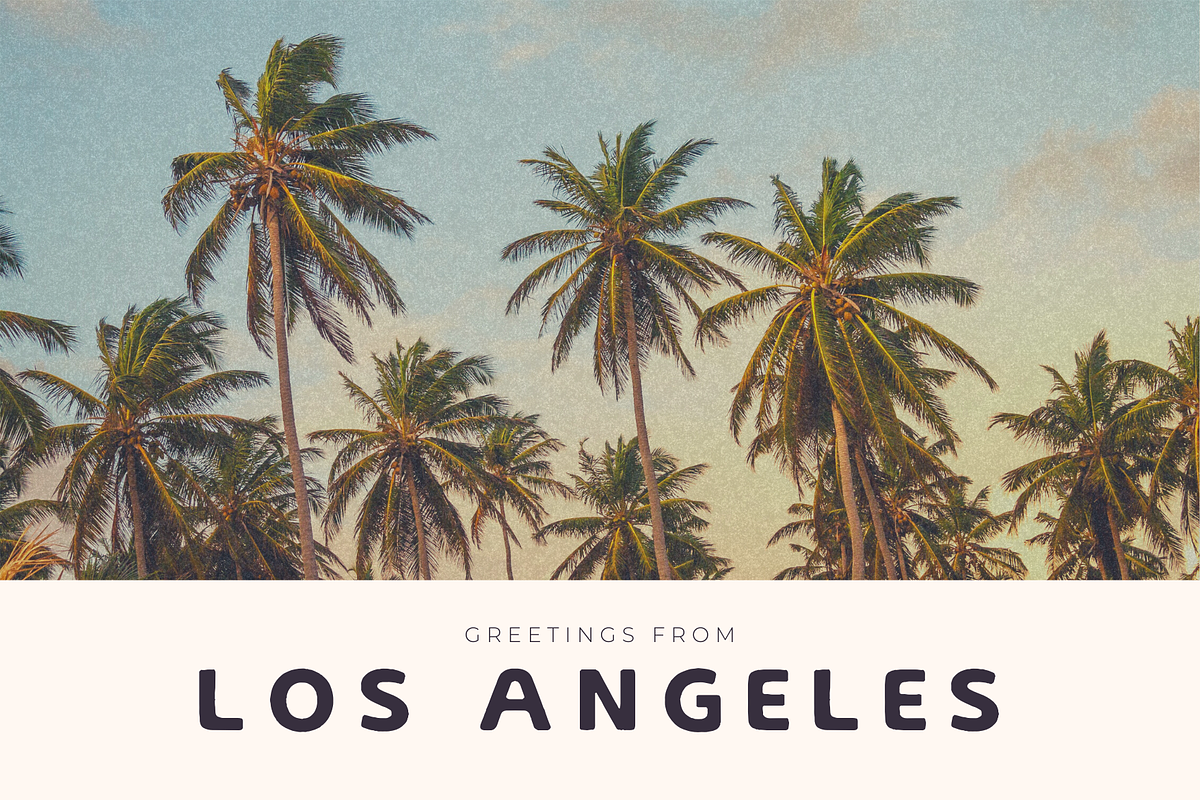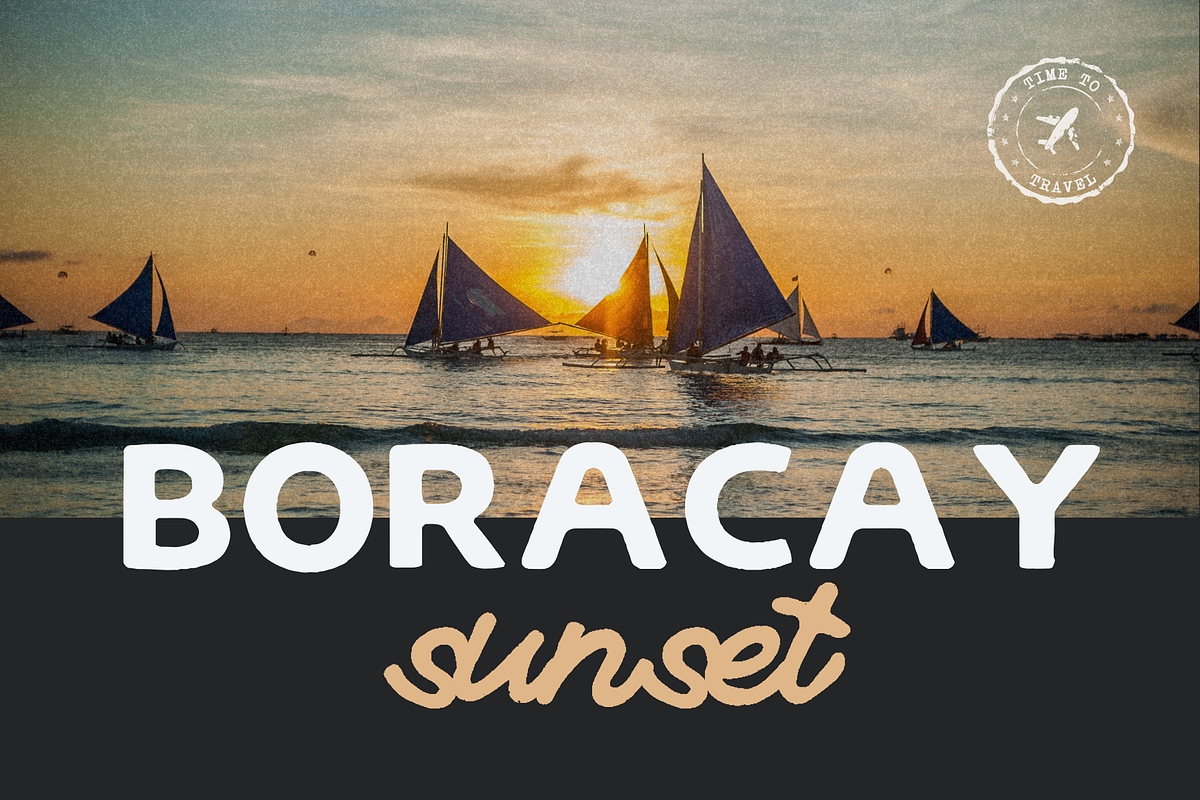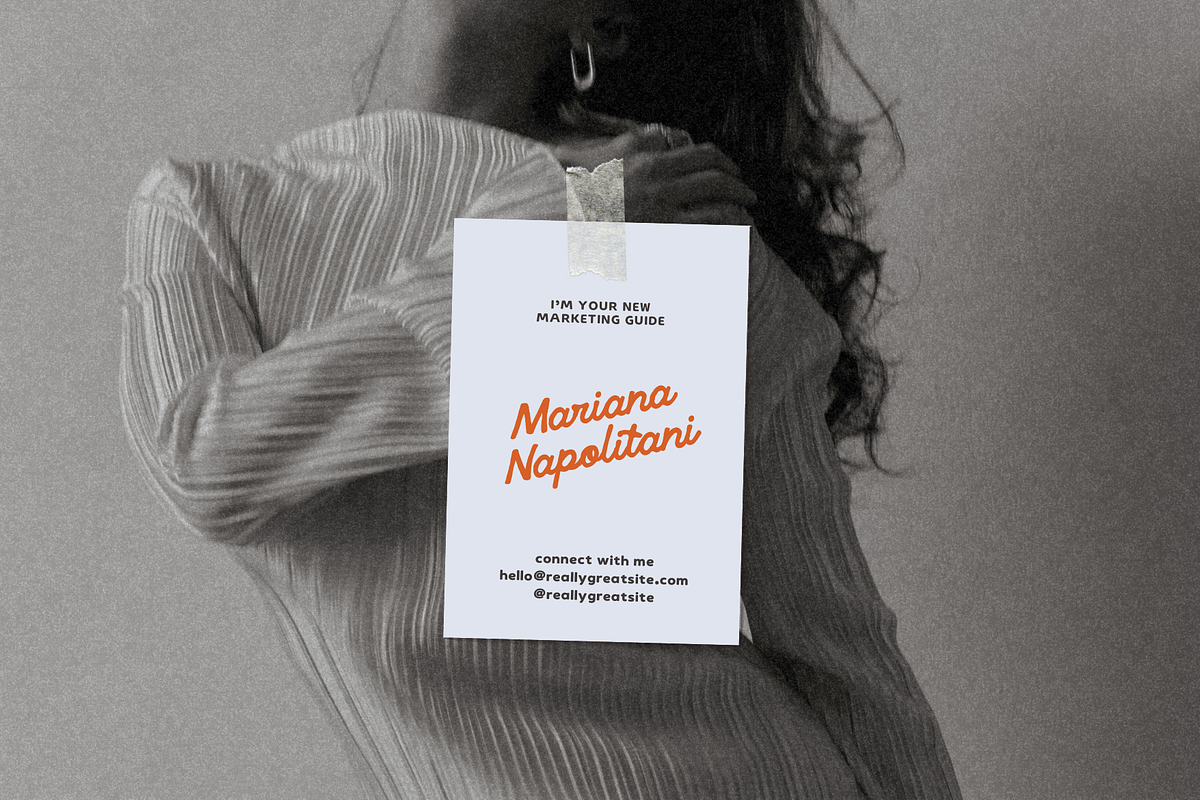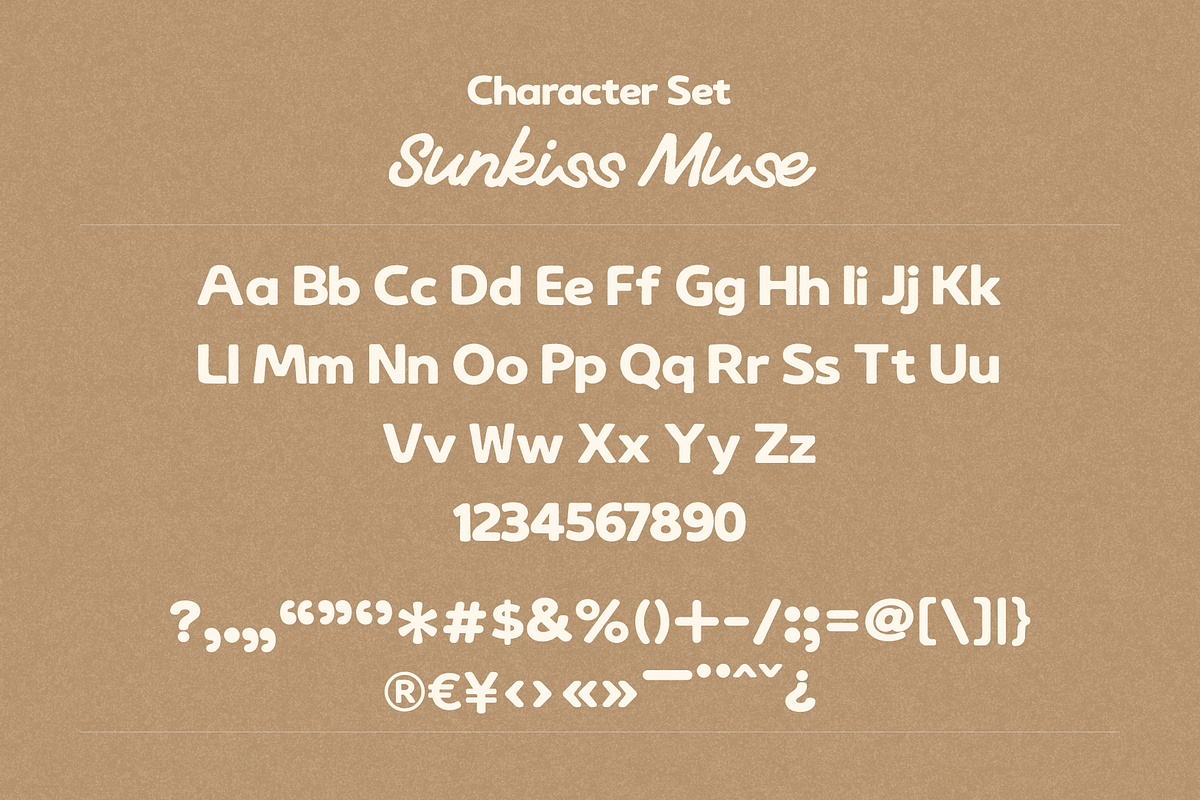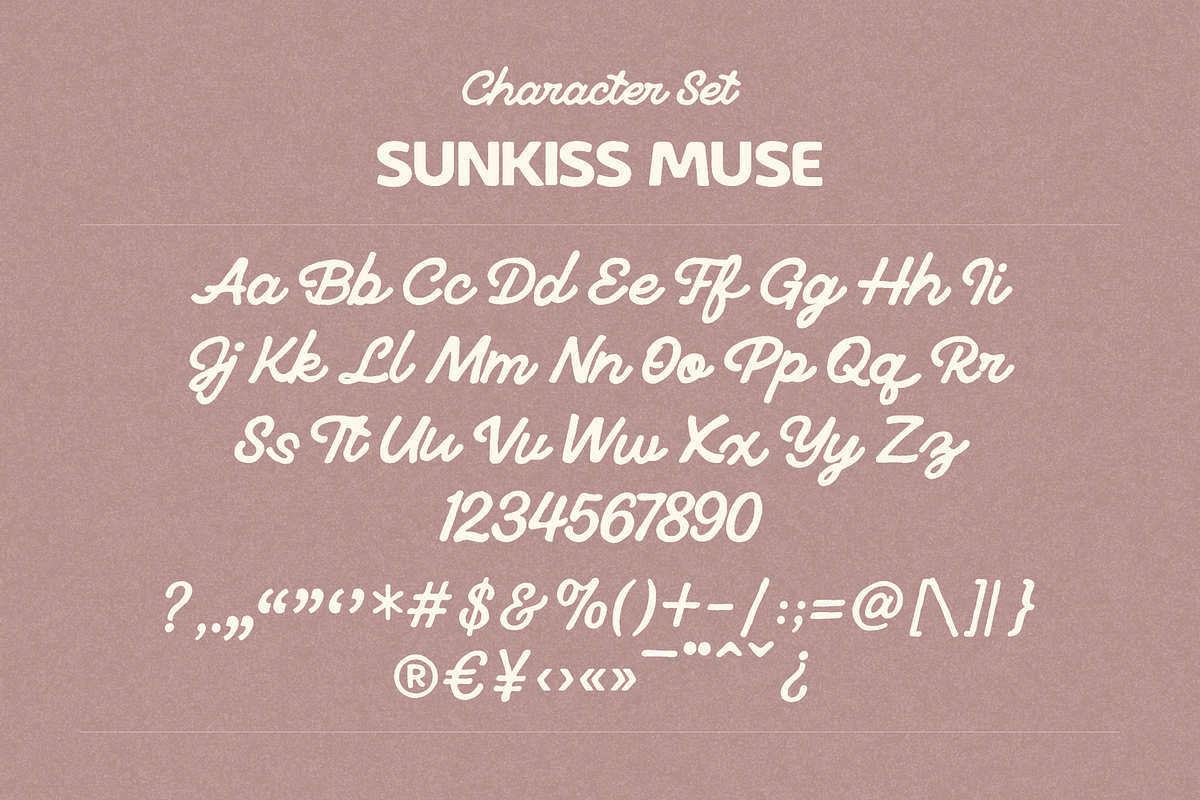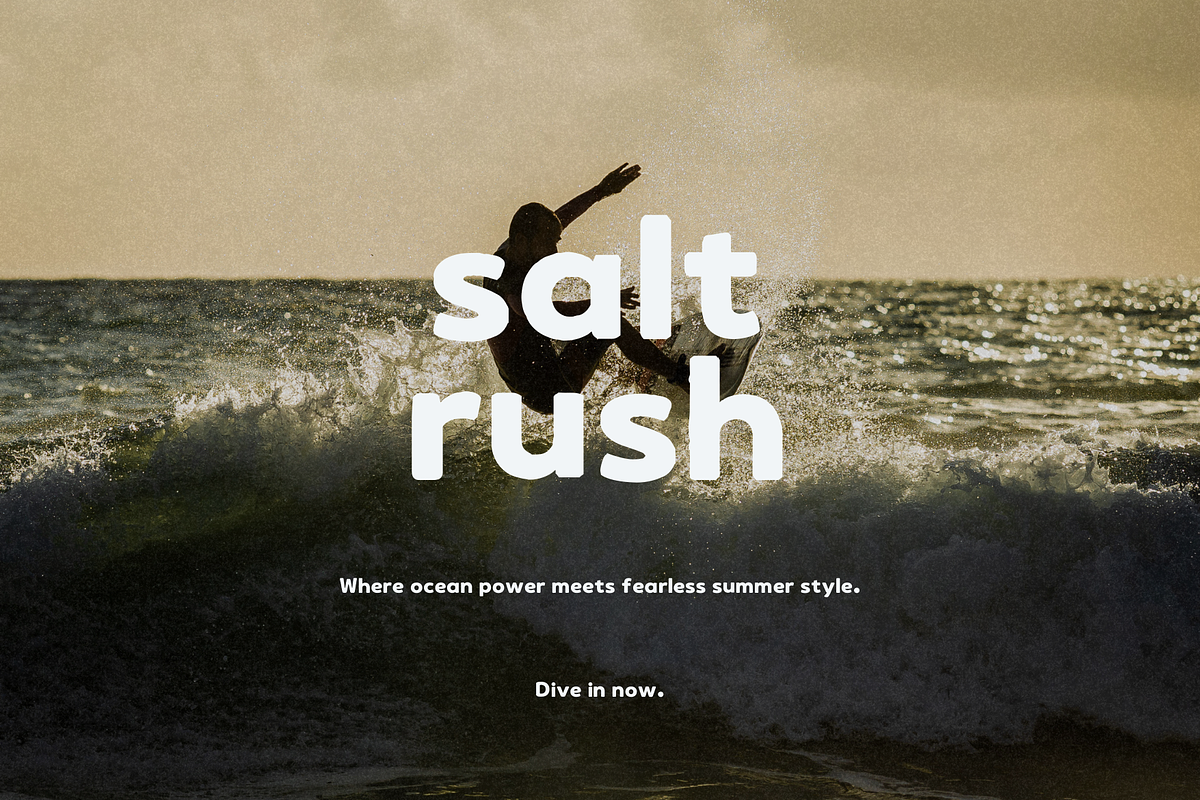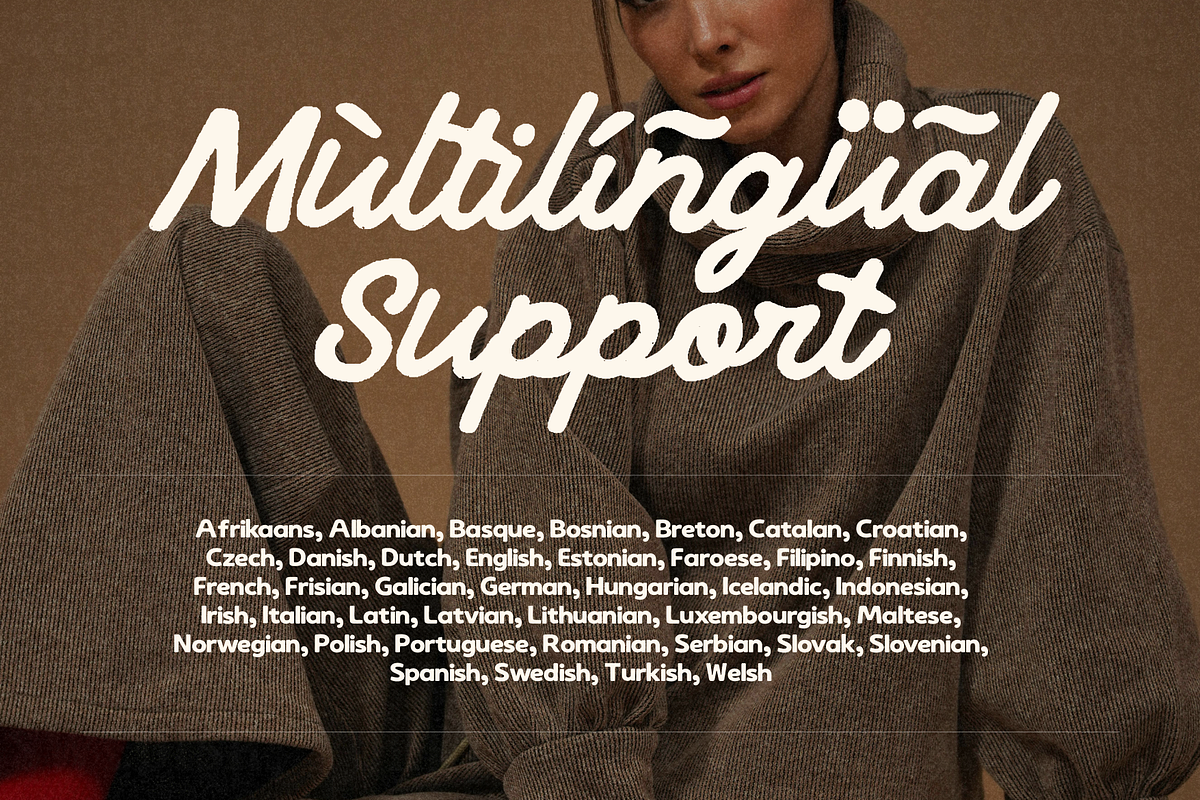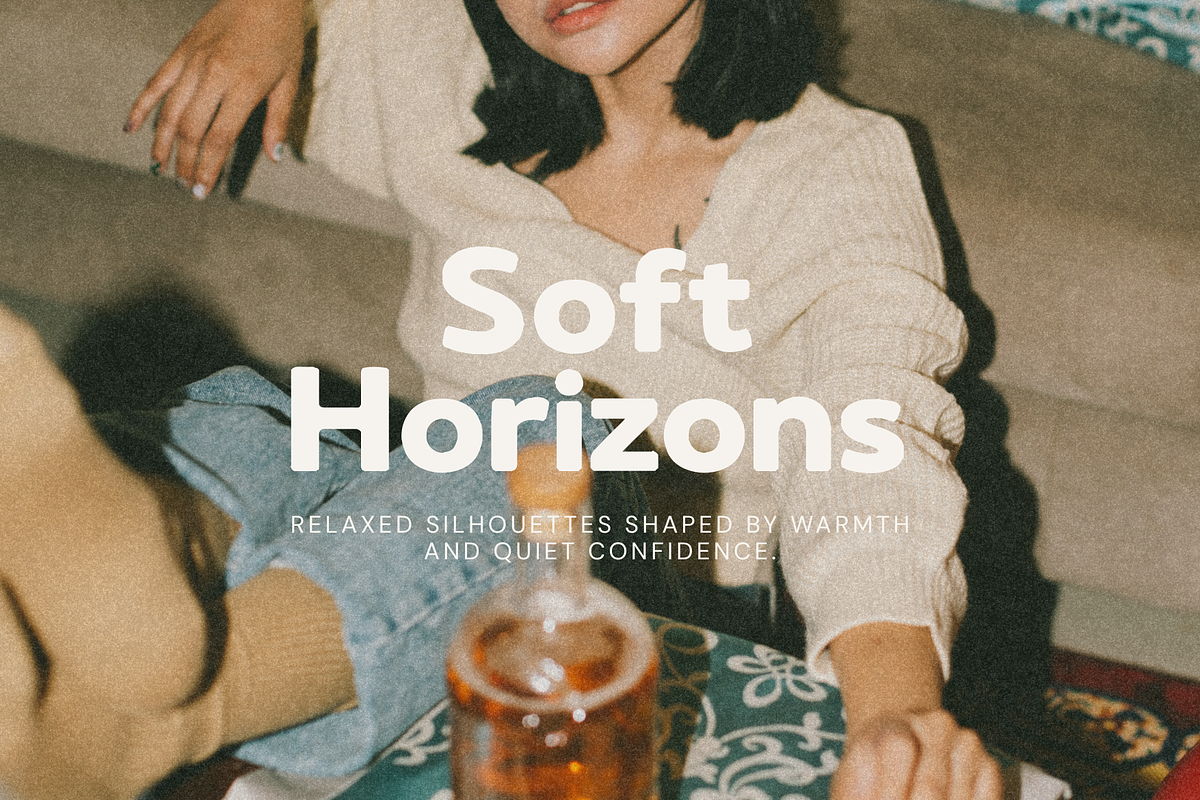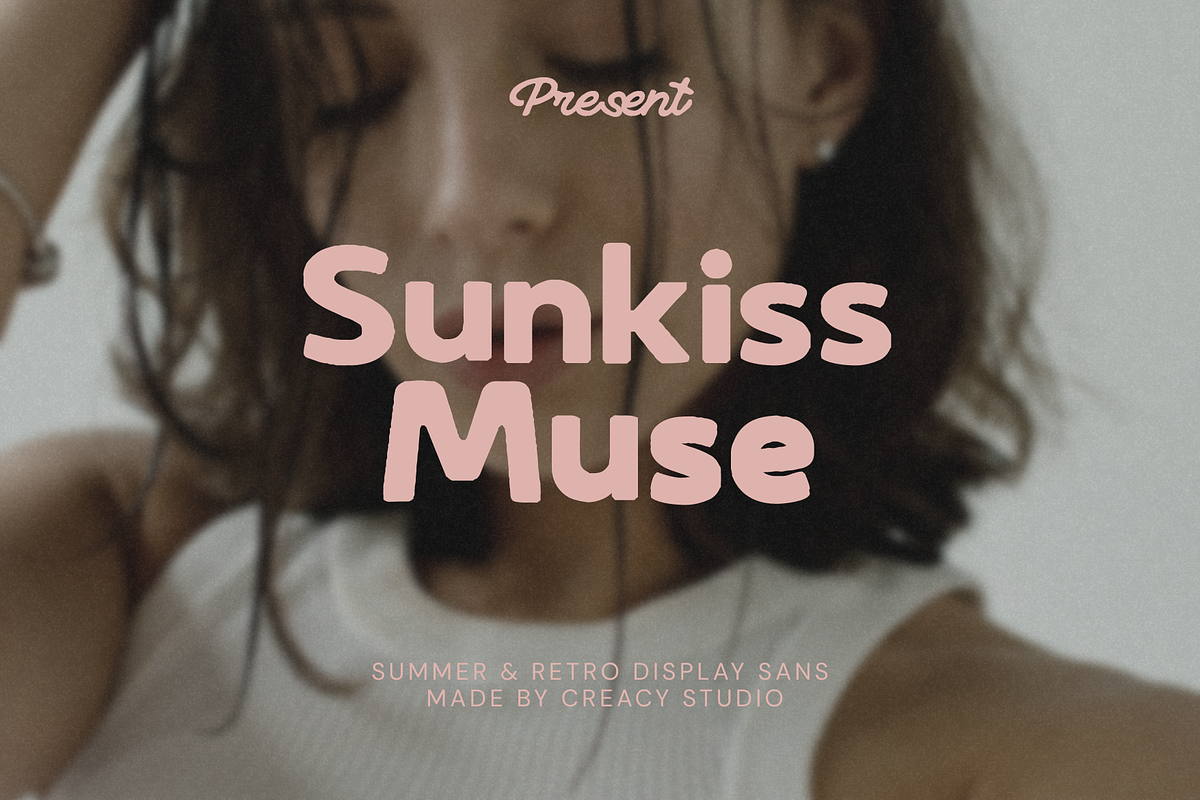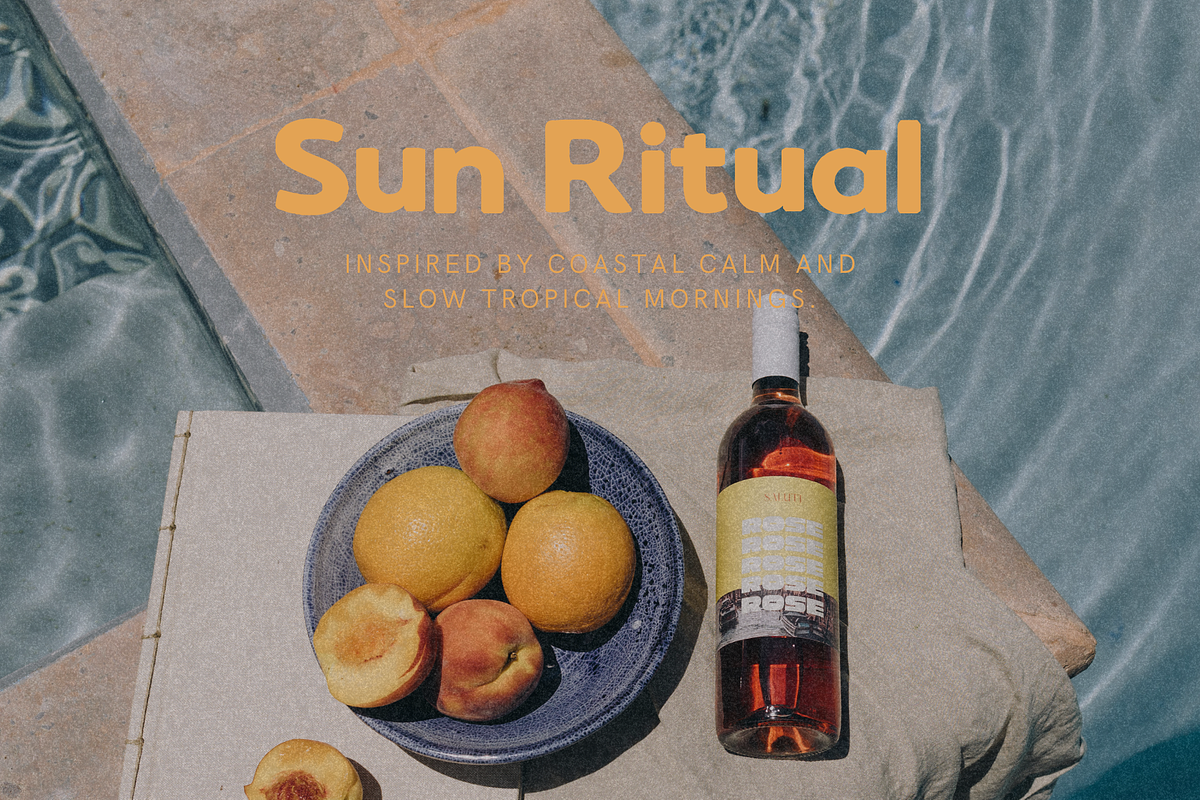
Sunkiss Muse – Summer Retro Display
Sunkiss Muse – Summer Retro Display & Script Duo
Sunkiss Muse is a warm, sunlit typeface duo inspired by coastal mornings, vintage postcards, and effortless summer style. Designed to combine bold retro presence with natural handwritten flow, this font brings softness, confidence, and nostalgic warmth into any creative project.
This typeface includes a rounded retro display sans paired with a casual brush-style script, giving you flexibility to create dynamic typographic compositions — from bold headlines to elegant signatures.
Style & Characteristics
- Rounded retro letterforms
- Soft geometric construction
- Bold, friendly strokes
- Natural handwritten rhythm
- Clean spacing & kerning
- Perfect for large headlines and branding
- Branding & Logo Design
- Social Media Templates
- Summer Campaigns
- Travel & Coastal Posters
- Packaging Design
- Editorial Layouts
- Lifestyle & Fashion Branding
- Postcards & Merchandise
Supports a wide range of Latin-based languages including English, Spanish, French, German, Italian, Portuguese, Indonesian, and many more.
Sunkiss Muse is more than a font — it’s a warm visual atmosphere. If your brand speaks in sun, softness, and confident nostalgia, this typeface will elevate your storytelling beautifully.